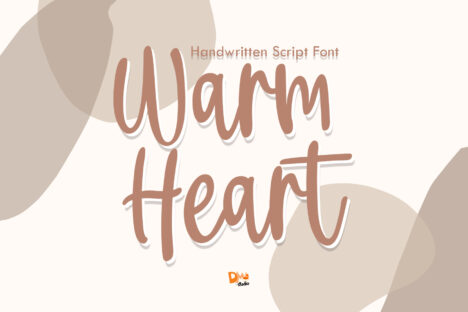
Warm Heart Font
Warm Heart Font is a beautifully crafted typeface that radiates warmth and affection. With its elegant and heartwarming design, this font is perfect for creating heartfelt and charming designs, including wedding invitations, love letters, greeting cards, and more. Enhance your projects with the inviting and loving aesthetic of the Warm Heart Font.
1. Elegant and Heartwarming Design: The Warm Heart Font features an elegant and heartwarming design that adds a touch of love and affection to your text.
2. Versatility in Application: Ideal for a variety of design projects such as wedding invitations, love letters, greeting cards, and more, adding a warm and inviting element to your creations.
4. Uppercase and Lowercase Letters: The font includes both uppercase and lowercase letters, offering flexibility and creative freedom in your designs.
5. Punctuation and Symbols: Comprehensive set of punctuation marks, numerals, and symbols ensures consistency and ease of use in your design projects.